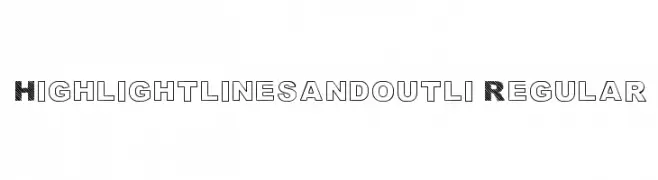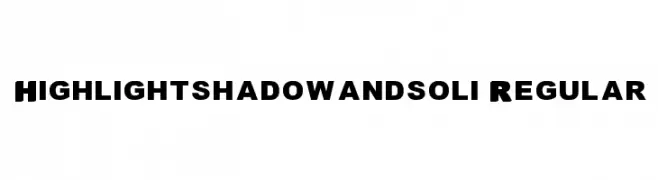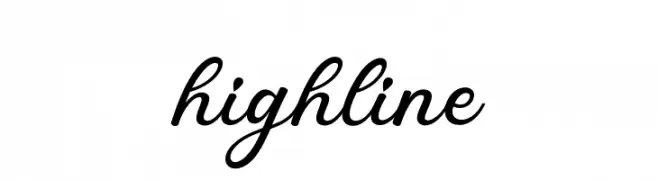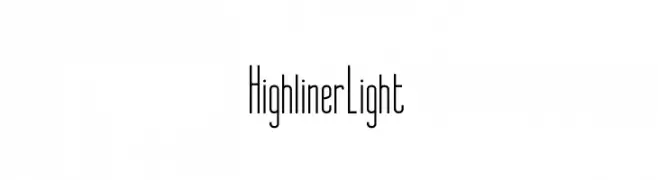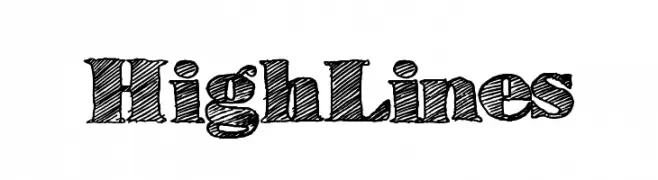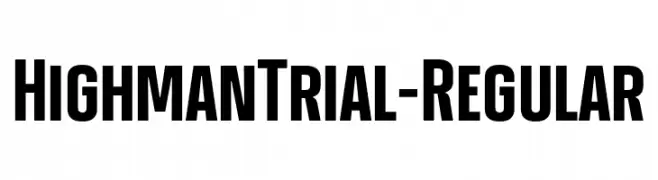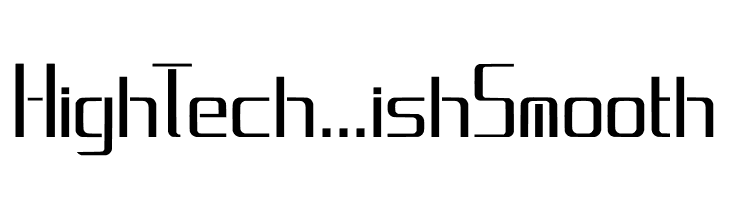
A bold, condensed font with a textured, distressed vintage style.
A sophisticated cursive font with elegant, flowing strokes.
A tall, narrow font with a modern and sleek design.
A modern, tall, and narrow font with a sleek, geometric design.
A bold, hand-drawn font with textured, sketch-like hatching.
A playful, bold script font with a hand-drawn, whimsical style.
A modern, condensed sans-serif font with a clean and geometric design.
A bold, modern sans-serif font with strong, geometric lines.